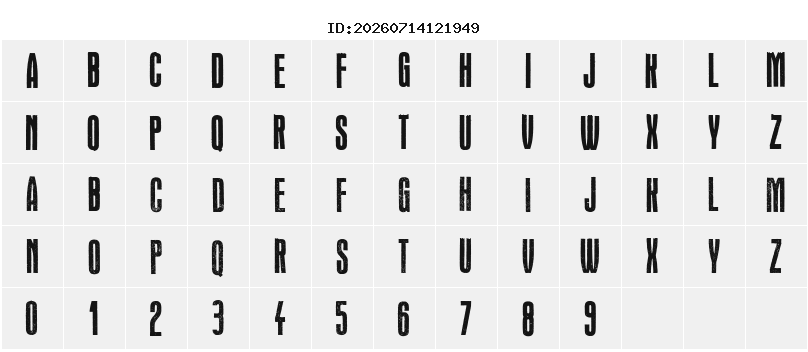
Headline Crack Preview
• Font Name: Headline Crack
• Font ID: Headline Crack:Version 1.00
• Full Font Name: Headline Crack
• Version: 噥牳楯渠ㄮ〰⁄散敭扥爠㈵Ⱐ㈰ㄱⰠ楮楴楡氠牥汥慳?
• PostScript Name: HeadlineCrack
• Designer: Imagex
• Description: 周楳⁦潮琠睡猠捲敡瑥搠畳楮朠䙯湴䍲敡瑯爠㘮㔠晲潭⁈楧栭䱯杩挮捯?
About Headline Crack.ttf
Headline Crack.ttf is a modern, elegant sans-serif font designed for ultimate readability and visual harmony. Perfect for branding, headlines, web design, and print materials.